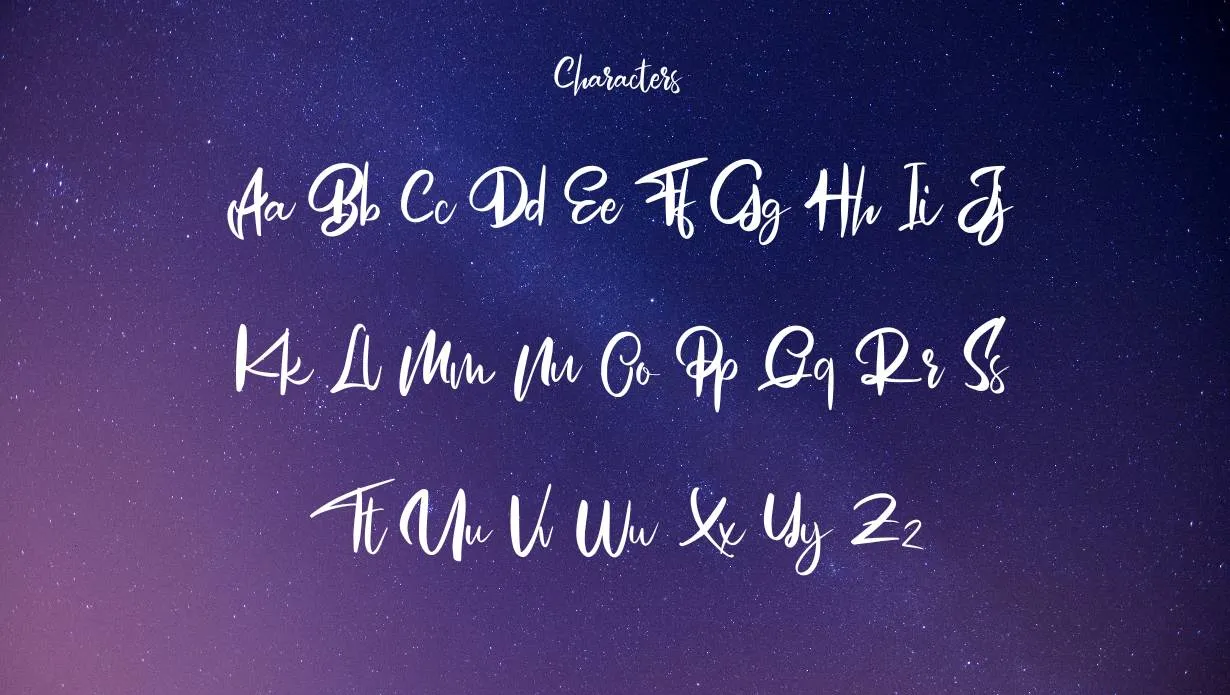
Mosem Font Free Download
Mosem Font is a stunning font. This typeface lies under the script font family with a touch of brush font family as well. The decorative stokes and thin characters of this font are useful to create attractive YouTube Thumbnails, Posters, and flyers.
View of Mosem Font
Mosem Font Info
| Name | Mosem Font |
| Designer | Vunira Design Foundry |